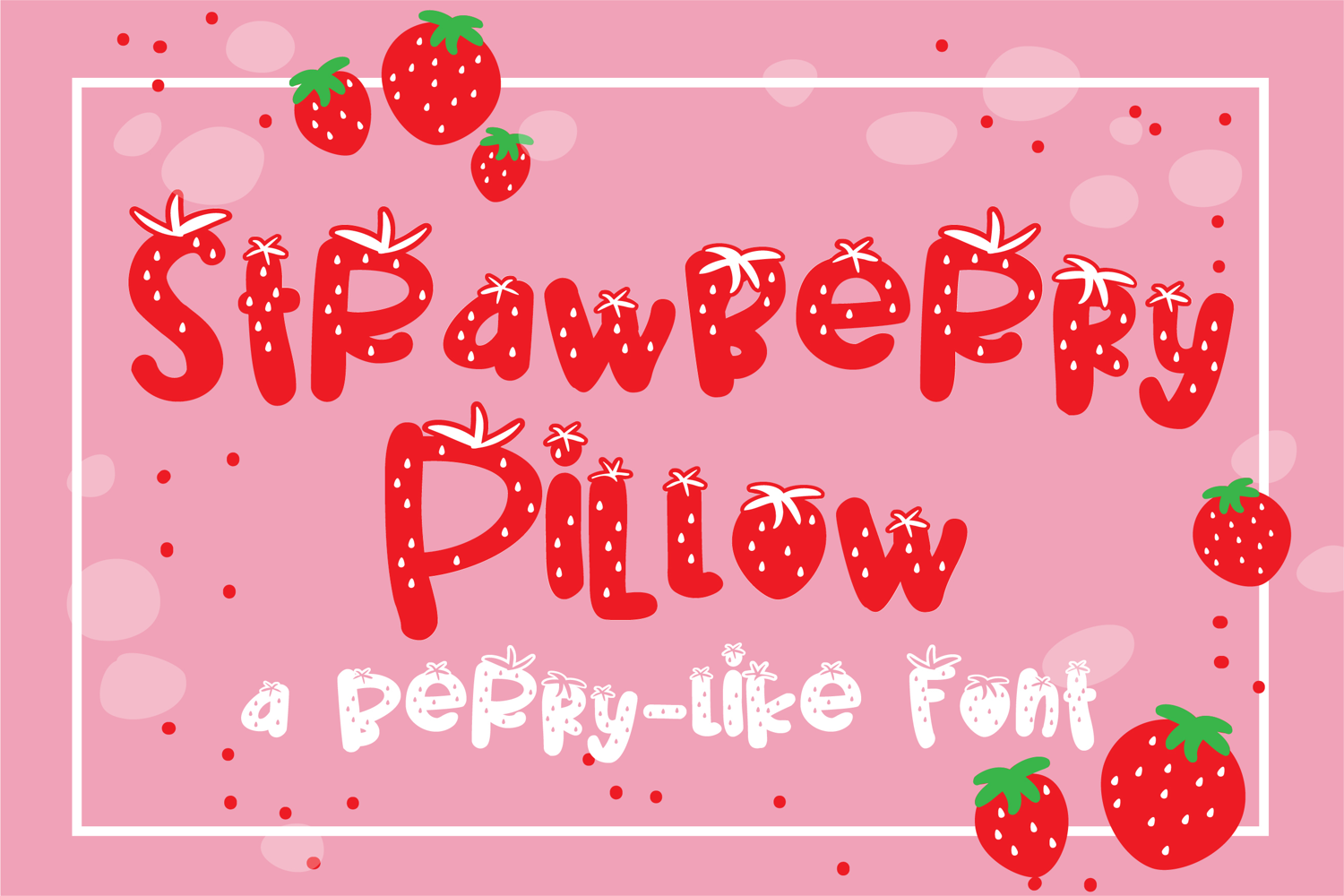
Strawberry Pillow Cute Strawberry Display Font
Strawberry Pillow is a sweet and playful display font featuring strawberry leaves, tiny seeds, and softly rounded letterforms. Its cheerful fruit-inspired style is perfect for summer crafts, children’s designs, party invitations, kitchen décor, labels, stickers, greeting cards, shirts, and other berry-cute creations.